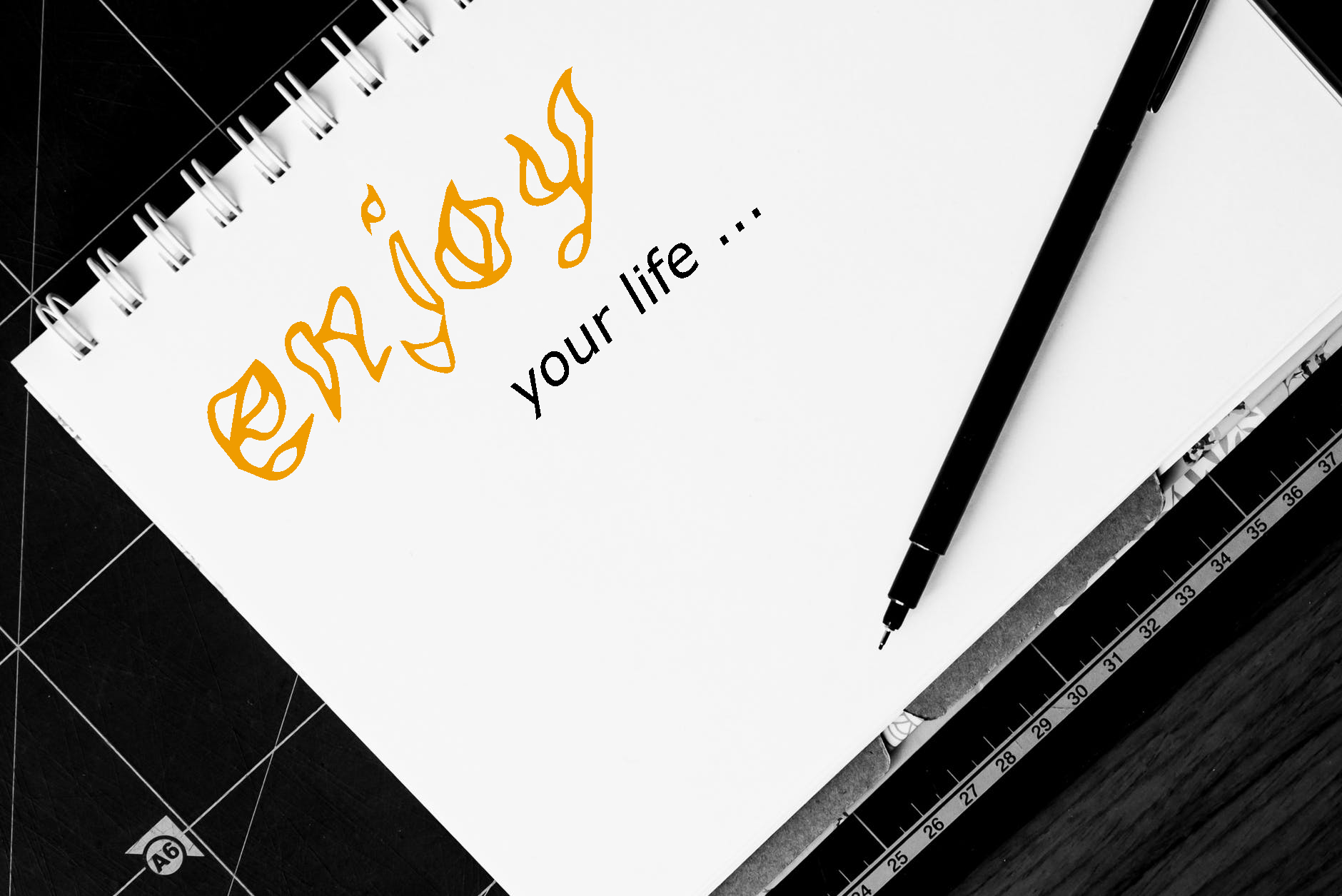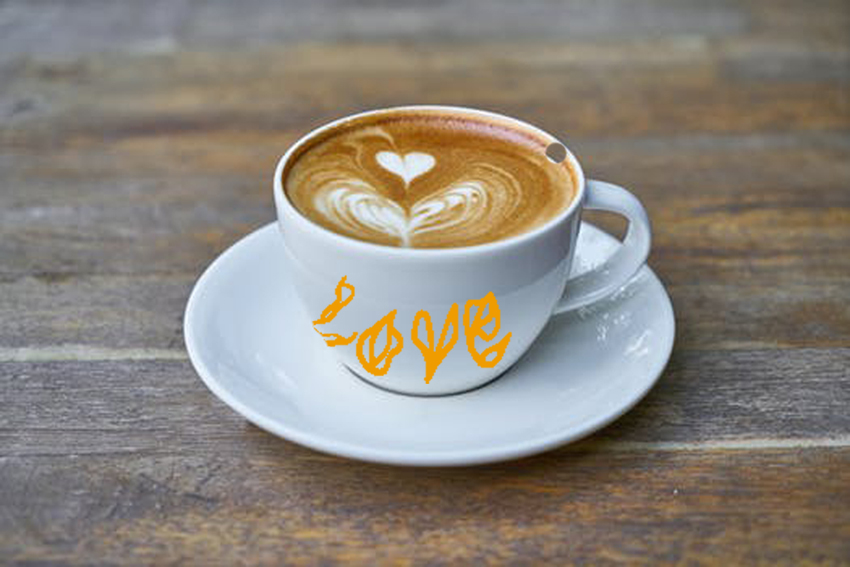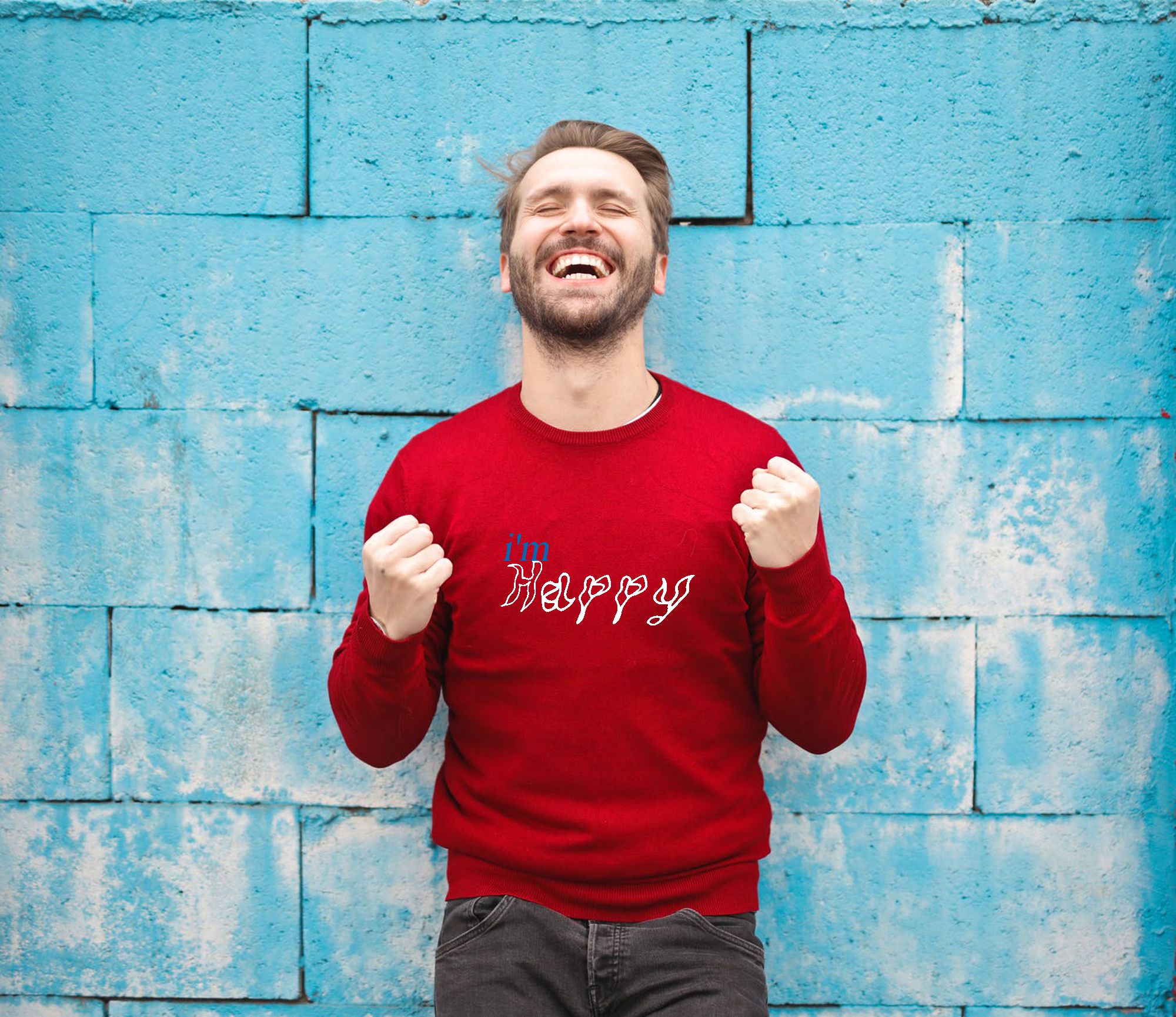
Introduction to Meusaneut Font
Have you ever found yourself staring at a blank canvas, searching for the perfect font to bring your creative project to life? It’s a moment we’ve all experienced – the moment of truth when our design vision hangs in the balance. And then, like a breath of fresh air, you stumble upon the Meusaneut Font. This handdrawn masterpiece is more than just a design resource – it’s a game-changer.
With its unique look and feel, the Meusaneut Font is a high-quality addition to any designer’s toolkit. Whether you’re working on a project with a transparent background or a bold, eye-catching design, this font is sure to impress. And the best part? It’s available for a free download, making it an accessible design resource for creatives of all levels.
Key Features of Meusaneut Font
- Meusaneut Font offers a transparent background, making it suitable for a wide range of applications.
- The font includes a variety of glyphs and characters, making it a versatile design resource.
- It is designed to be easily readable on both light and dark backgrounds, making it a great choice for creative projects.
Honest Review: Meusaneut Font
As a designer, I’m always on the lookout for high-quality design resources to elevate my creative projects. Recently, I came across the Meusaneut Font, and I must say it’s been a game-changer for my design workflow.
Here are some things that work well with the Meusaneut Font:
- ✨ High-quality glyphs that render beautifully on a transparent background.
- ✨ Excellent legibility, making it perfect for body text in digital designs.
- ⚠️ Limited character set, which may not be ideal for complex designs.
- ⚠️ Not as versatile as some other fonts, making it less suitable for bold headings.
Overall, I’m impressed with the Meusaneut Font’s potential to elevate my design projects. While it may have some limitations, its high-quality glyphs and free download make it a valuable addition to my design resource arsenal.
Use the Meusaneut Font on a transparent background to create a clean and modern design for your creative project.
Experiment with different font sizes and styles to achieve the desired effect.
The Meusaneut Font is ideal for creating visually appealing headings, titles, and body text in various design projects, including:
- Marketing materials (brochures, flyers, posters)
- Graphic designs (logos, icons, infographics)
- Web design (websites, landing pages, blogs)
Alternatives to Meusaneut Font
A beautiful, elegant script font perfect for creative projects that require a high level of sophistication. Alex Brush Font features a transparent background, making it ideal for overlaying on images or using as a design resource for web design projects. It’s free to download and use for personal and commercial projects.
Compared to Meusaneut Font, Alex Brush Font has a more refined and luxurious feel, making it suitable for high-end branding and marketing materials.
2. Ostrich Sans Font
A modern sans-serif font designed for use in digital and print media. Ostrich Sans Font is a great choice for designers who need a clean and easy-to-read font for creative projects, such as brochures, business cards, and websites. It’s available for free download and features a high-quality design that works well with a transparent background.
Compared to Meusaneut Font, Ostrich Sans Font has a more straightforward and modern aesthetic, making it suitable for a wide range of design applications.
A fun and energetic script font perfect for creative projects that require a playful and youthful vibe. Great Vibes Font features a high level of detail and texture, making it ideal for use as a design resource for packaging, advertising, and social media graphics. It’s free to download and use for personal and commercial projects.
Compared to Meusaneut Font, Great Vibes Font has a more whimsical and carefree feel, making it suitable for projects that require a sense of fun and playfulness.
Q: What is the recommended resolution for using Meusaneut Font in high-quality designs?
A: For optimal results, it is recommended to use Meusaneut Font at a resolution of 300 DPI or higher. This ensures that the font appears crisp and clear, even in large formats or high-resolution prints. Using a high-quality font like Meusaneut Font will elevate your design to the next level.